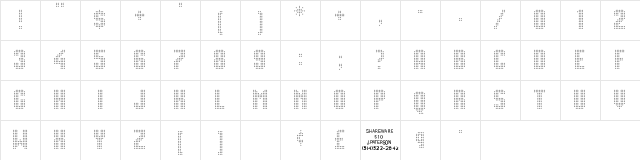
Movie Star Regular Free Font
Movie Star Regular
Design Context for Movie Star
Movie Star is a composed and adaptable typeface that performs quietly and consistently across a wide range of design contexts.